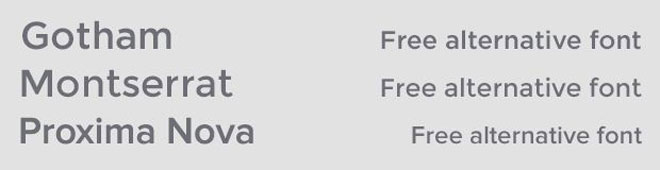
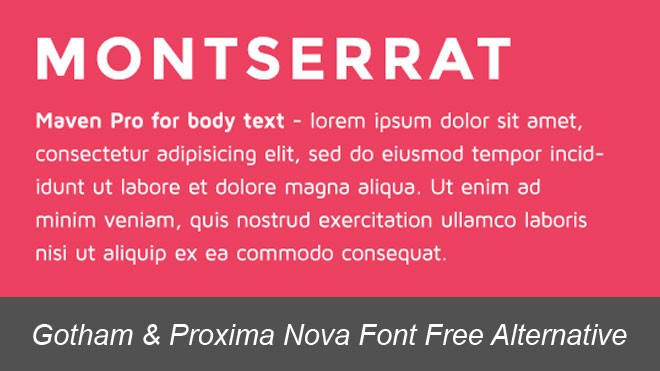
As we know that anything that has a expensive price tag on it, there is always an alternative to that Product. which is cheaper or free. Montserrat font is a perfect alternative to Gotham and Proxima Nova font, Montserrat font is not only free, it’s one of Google’s own fonts so you can use it on any website.
Proxima Nova Font Free Alternative
In Above Image You can see Montserrat Font in the middle. it will be easy for you to compare these fonts.